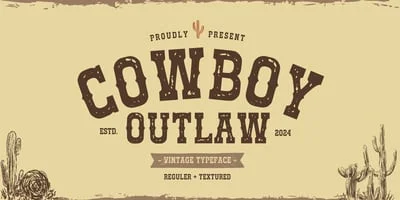
Cowboy Outlaw Font
Cowboy Outlaw Font is ideal for rugged Western design applications including saloon signage, rodeo promotions, country music branding, Western apparel graphics, ranch logos, frontier-themed restaurants, cowboy merchandise, and authentic Wild West recreations. This bold typeface captures the rebellious spirit and untamed character of the American frontier through weathered letterforms that embody outlaw independence and cowboy authenticity.
What makes Cowboy Outlaw Font exciting is its authentic representation of Wild West rebellion and frontier lawlessness through distressed letterforms that evoke the rough-hewn character of saloons and outlaw hideouts. The font features rugged construction with weathered edges and aggressive styling that communicates defiance and frontier independence. Its outlaw character appeals to audiences who embrace rebellion, independence, and the untamed spirit of the American West.
The Cowboy Outlaw Font family includes various frontier styles such as Regular, Distressed, Shadow, and Weathered variations that enhance the outlaw aesthetic. These rebellious options provide comprehensive design solutions for creating authentic Western brand identities that celebrate frontier independence and cowboy rebellion against conventional authority.
This specialized Western typeface brings genuine outlaw authenticity to contemporary design projects. Western entertainment companies and frontier-themed businesses choose Cowboy Outlaw Font for its exceptional ability to communicate rebellious spirit and Wild West authenticity. The font's outlaw inspiration makes it perfect for Western bars, country music venues, and frontier attractions that want to project authentic cowboy rebellion and frontier independence. Its rugged character ensures memorable brand recognition while maintaining the authentic aesthetic that defines exceptional Wild West design work.